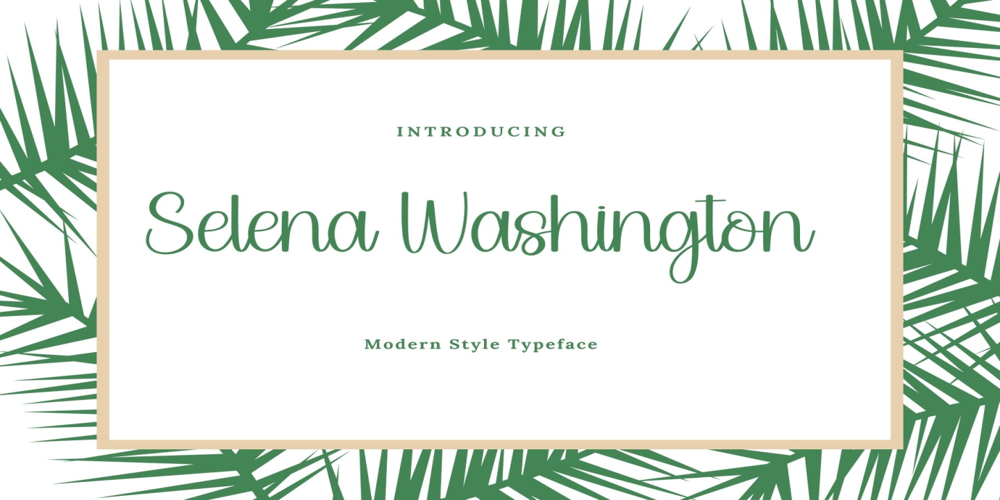
Selena Washington Font Family was designed by Joshua Darden and published by Adita Fonts. Selena Washington contains 1 styles and family package options. About the ProductSelena Washington is a fun and versatile handwritten font. Whether you’re using it for crafting, digital designing, presentations, or greeting card making, it’s perfect!